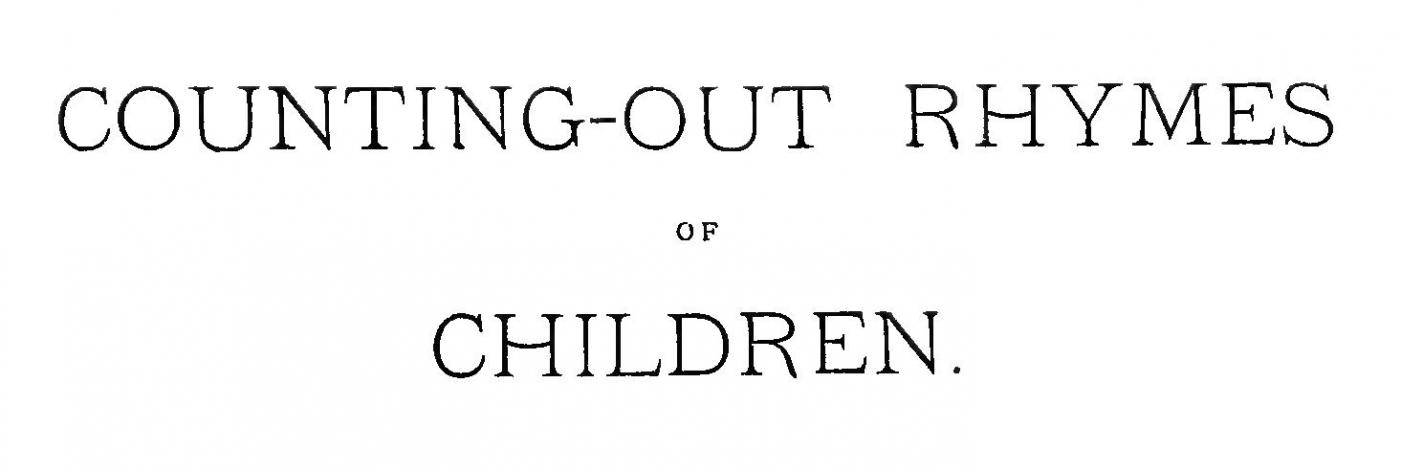
Typeface used on title page of Counting-Out Rhymes of Children (1891)
Two possibilities: Norman, from the Michaelmas Specimens of Printing Types (1883). It has similar serif details and the same bowed crossbar on the H, but its R is a bit more traditional (upcurved foot).
Celtic, which I found in Franklin Type Foundry’s Book of Specimens (1889), is perhaps a better match; the H has a bowed crossbar and the R is closer to your sample.
Celtic would make sense given that Nutt was a Celticist.